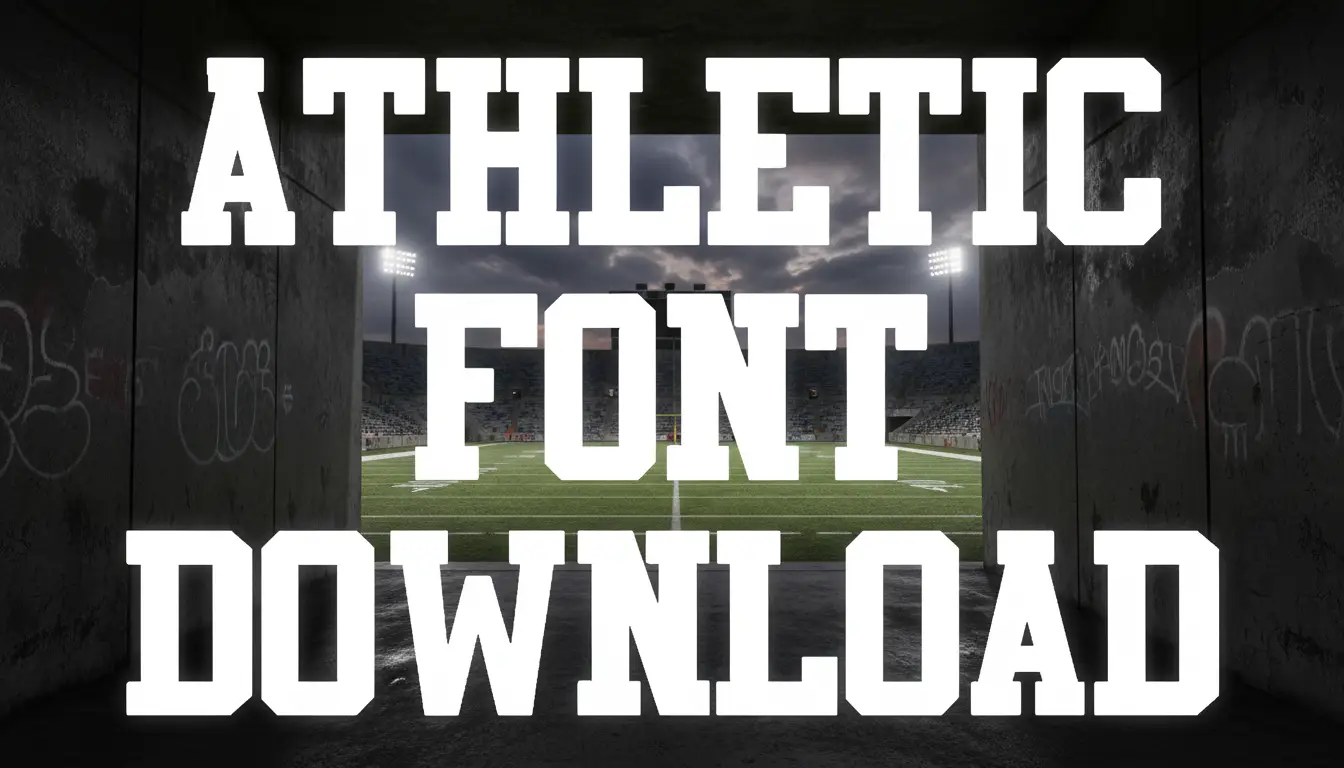
Athletic Font
Athletic Font Preview
Athletic
Athletic is a fancy font. Bold and full of character, it's built to stand out rather than blend in. You can download it for free and test it with your own words in the preview above.
What You Can Type With Athletic
You get every letter from A to Z in both cases and all the numbers from 0 to 9, which means Athletic can handle full sentences, dates and prices. Punctuation is limited, so look at the character map if you need a specific symbol. It has 2 accented letters, but not the full set for Spanish or French, so test any non-English words first.
Where Athletic Works Best
Designers usually reach for fonts like Athletic when they're making posters, logos and eye-catching headlines. Use it for one standout word or headline and let simpler fonts handle the rest.